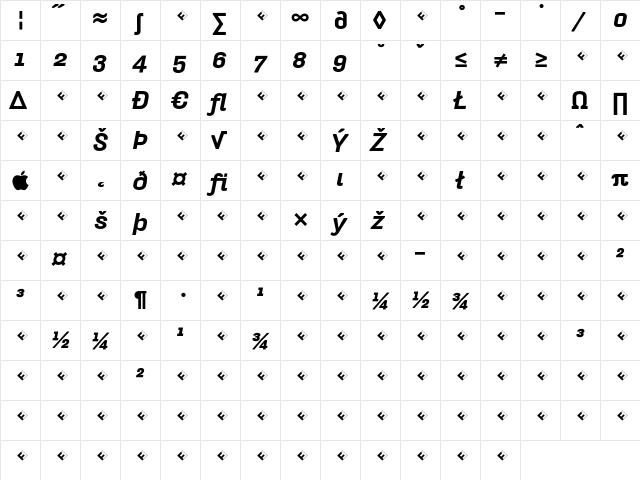
HydraText-BlackItalicExpert Regular
Design Context for HydraText-BlackItalicExpert Typeface
HydraText-BlackItalicExpert is a composed and adaptable typeface that performs quietly and consistently across a wide range of design contexts. Its italic angle brings a sense of urgency and motion to the letterforms.
Pro Tip: Use HydraText-BlackItalicExpert for emphasis, pull quotes, and subheadings where its slanted energy can add rhythm to the layout.